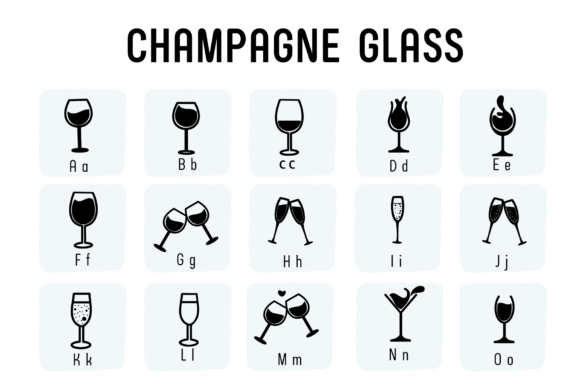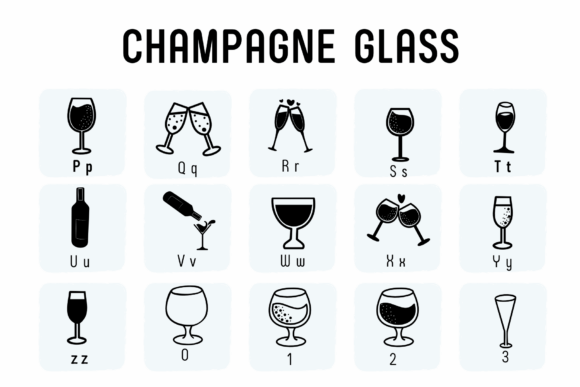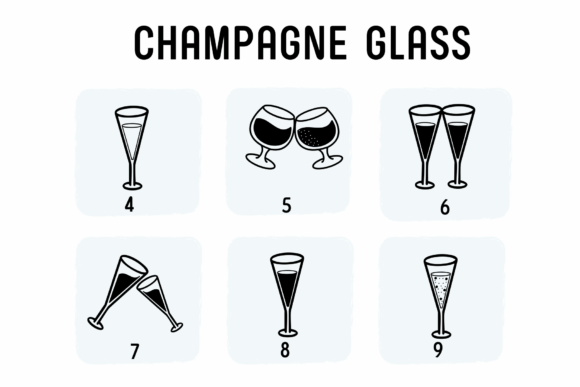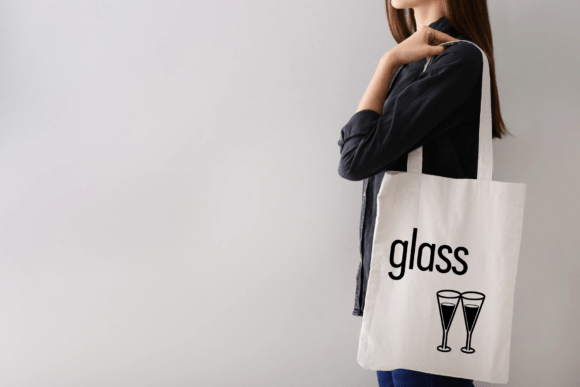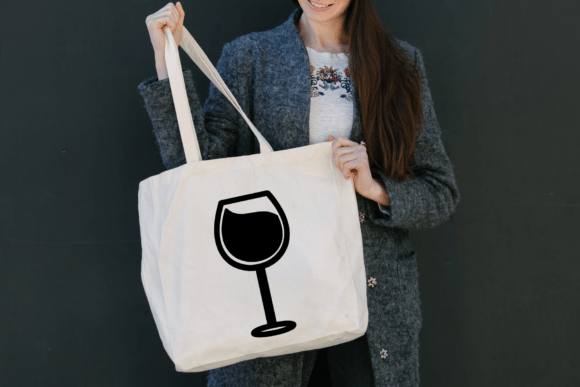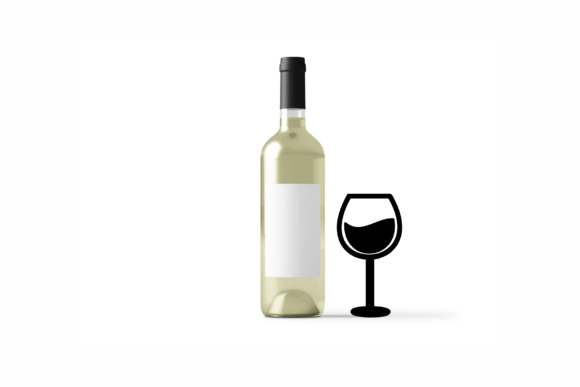
Pop the Cork on Your Next Project with Champagne Glass Font
Have you ever been browsing through Pinterest, stumbled upon a breathtaking wedding invitation, and thought, ‘I wish I could create something that beautiful?’ Perhaps you’re a DIY enthusiast, looking for the perfect font to add a touch of elegance to your handmade crafts. Whatever your creative pursuit, you’re in luck because we’re about to introduce you to the perfect accompaniment – the Champagne Glass Font.
This stunning dingbats font is specifically designed to bring a sense of sophistication and whimsy to your projects. With its delicate, curved lines, it’s perfect for wedding invitations, DIY decorations, logos, and any other creative endeavor that requires a touch of class. As a designer, you’ll appreciate the versatility and uniqueness of Champagne Glass Font, which can elevate your work and make it truly stand out from the crowd.
Champagne Glass Font Key Features
- Unique Characteristics: Champagne Glass Font features a unique, elegant design with flowing curves and subtle flair, making it perfect for creating luxurious and sophisticated designs.
Champagne Glass Font Review
Overall, I’m impressed with the unique aesthetic of the Champagne Glass Font. The font’s curves and elegance evoke the feeling of fine champagne, making it perfect for luxury brands or special occasions. ✨
The font’s versatility is another strength – it works well in both digital and print applications. I’ve seen it used effectively in logos, invitations, and even product packaging. ✨
While the font is eye-catching, it’s not ideal for body text. The curves can make it difficult to read at smaller font sizes, and the font may not be suitable for lengthy text blocks. ⚠️
What Doesn’t Work
- Lack of readability at smaller font sizes
- Not ideal for lengthy text blocks
- Can be difficult to pair with other fonts
Overall, the Champagne Glass Font is a beautiful choice for specific applications, but it’s not a one-size-fits-all solution. If you’re looking for a unique, luxurious feel, this font is worth considering. Just be mindful of its limitations and use it thoughtfully.
The Champagne Glass Font is perfect for:
- Sophisticated branding materials, such as business cards and letterheads.
- High-end event invitations and announcements.
- Editorial layouts and typography-based designs.